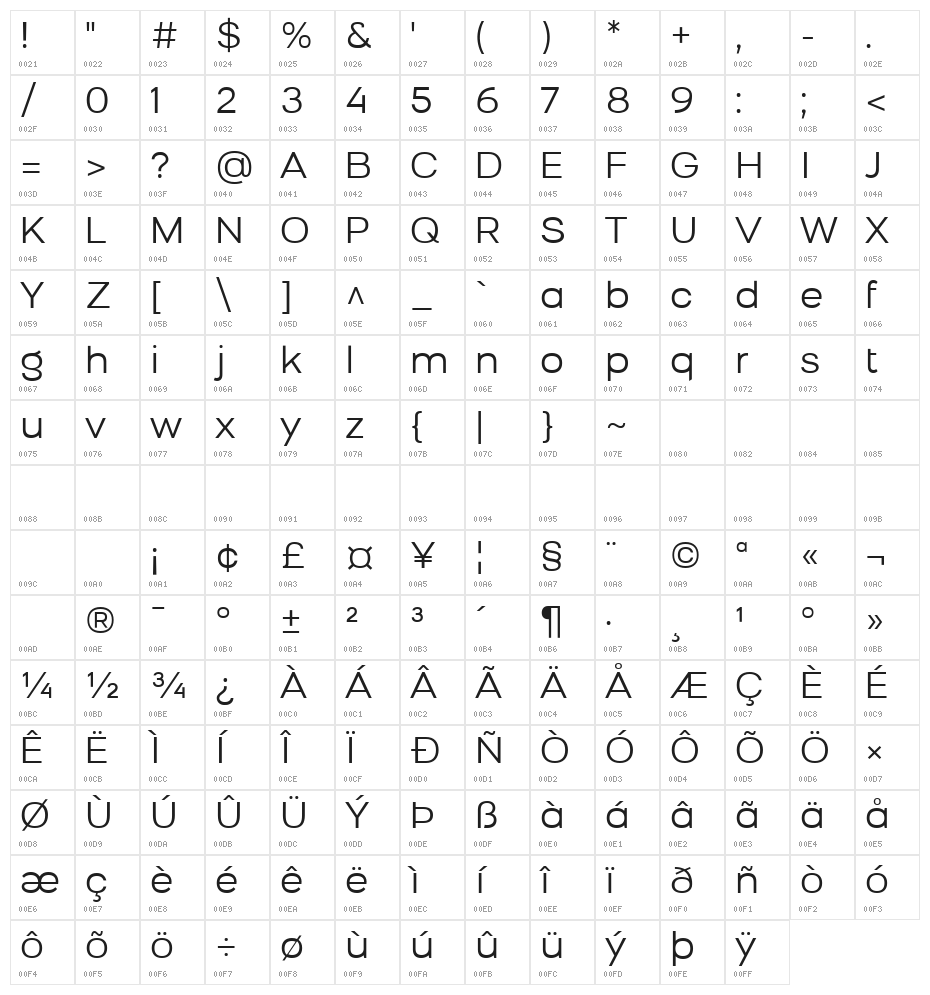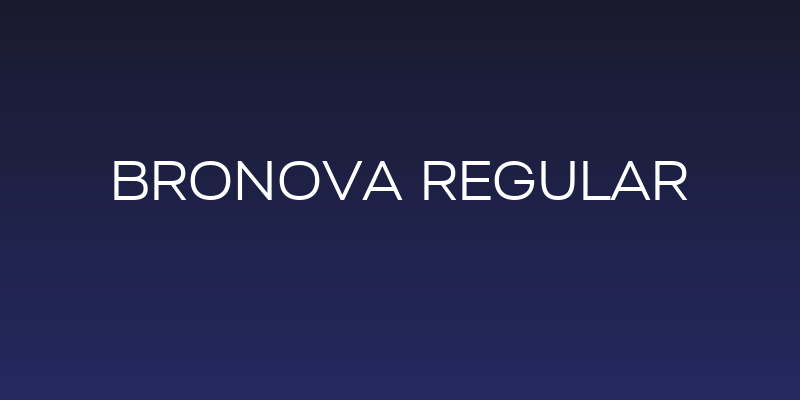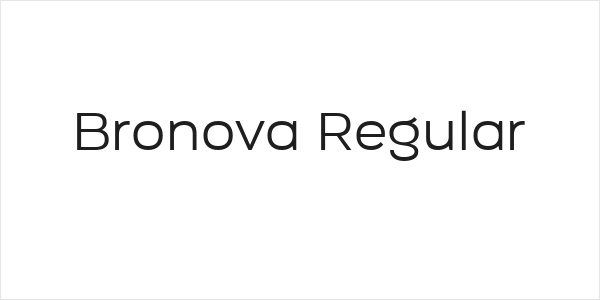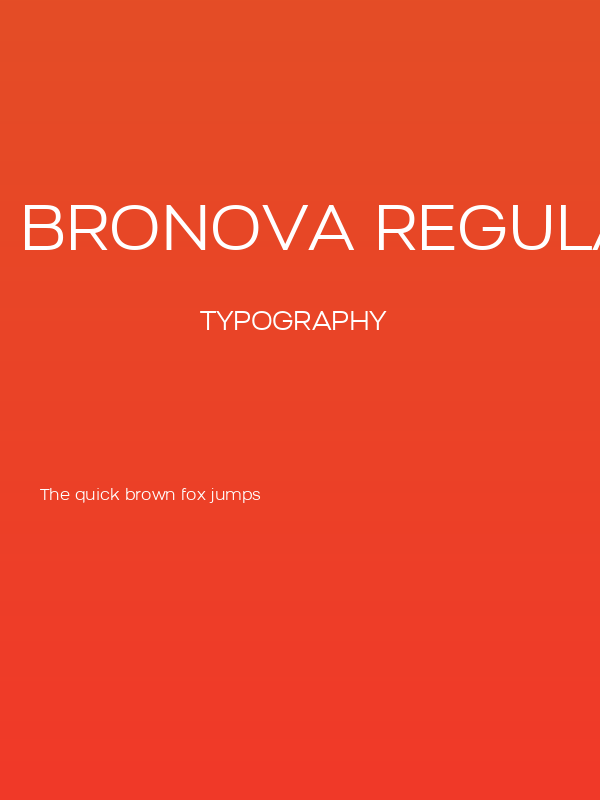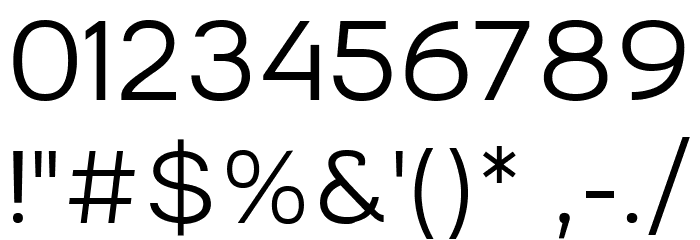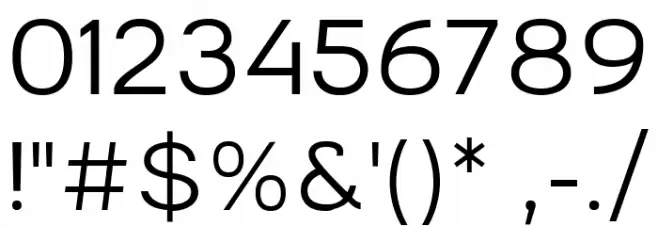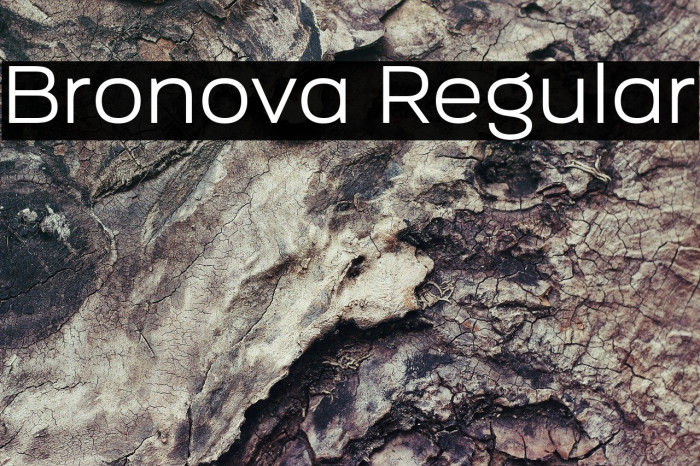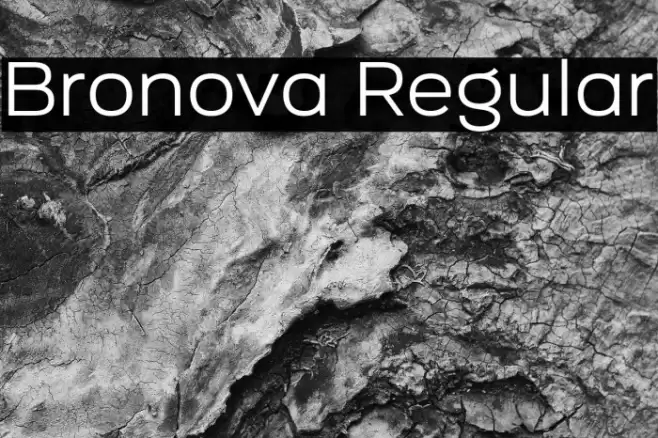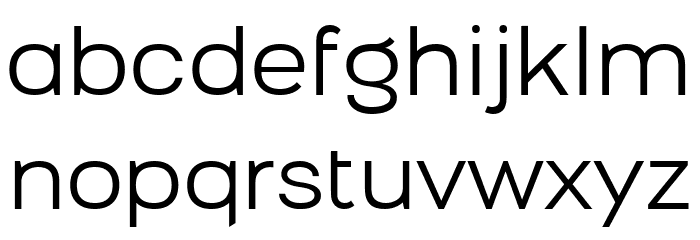
Bronova Regular Font
Bronova Regular Description
This font features a clean and modern sans-serif design, characterized by its geometric shapes and uniform stroke widths. The letters are well-proportioned, offering a harmonious balance between round and straight elements. The uppercase letters are bold and commanding, while the lowercase letters maintain a friendly and approachable appearance. The numerals are clear and easy to read, making them suitable for both digital and print applications. Special characters are designed with the same attention to detail, ensuring consistency across all glyphs. This font is versatile and can be used in a variety of design contexts.
Bronova Font
| Use Case | Headlines, Body text, Logos |
| Proposed Projects | Ideal for branding, web design, advertising, and editorial layouts. |